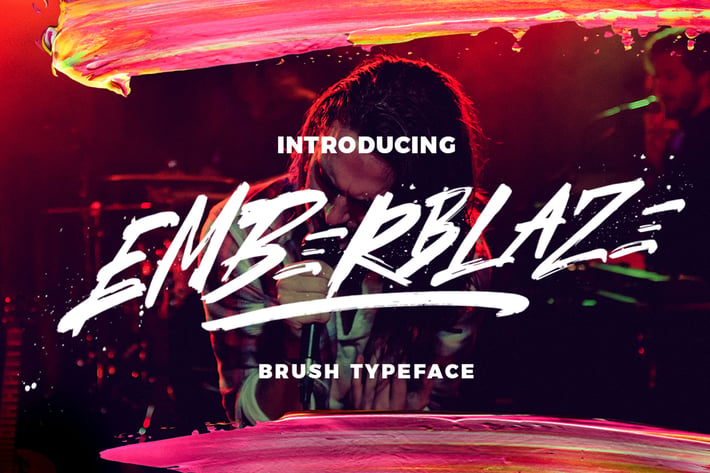
EMBERBLAZE - Brush Font
EMBERBLAZE is Handmade Font Brush, with combination lifestyle and street-wise brush font. With extra attention to quick strokes and sharp details, EMBERBLAZE to deliver a message expressly and quickly, ideal for logos, apparel, quotes, product packaging, or anything which needs a typographic turbo-boost.
You can mixing up both upper and lowercase characters in a word to achieve the best text layout!